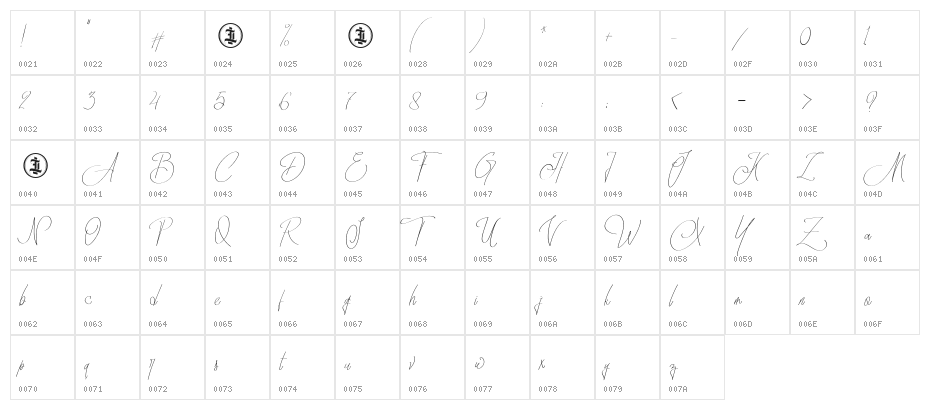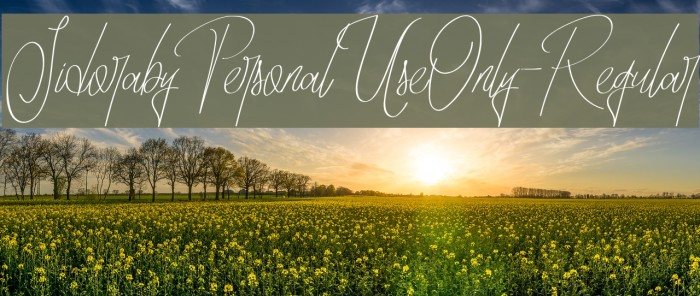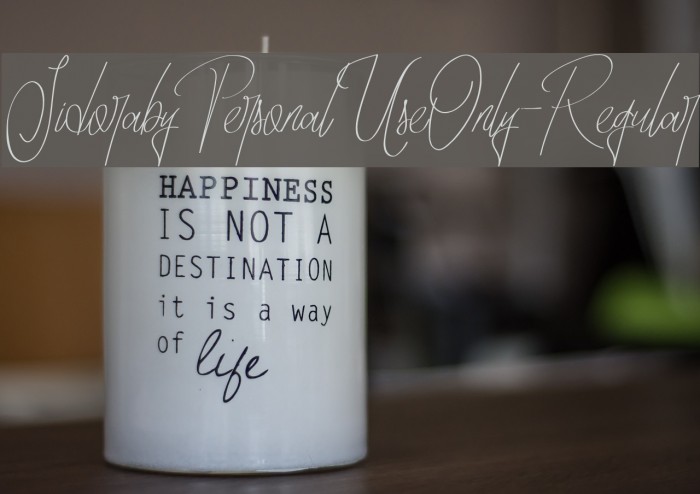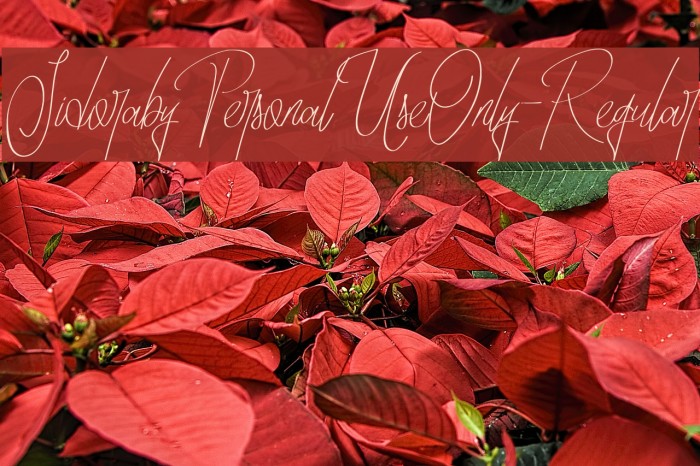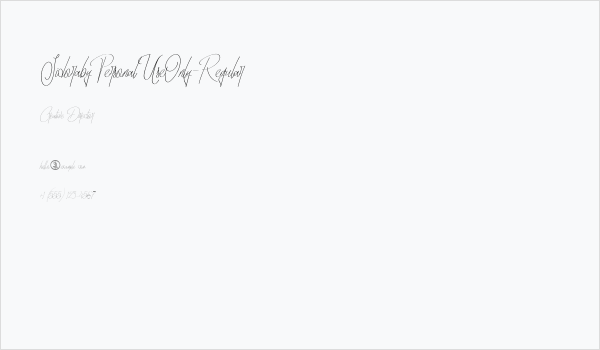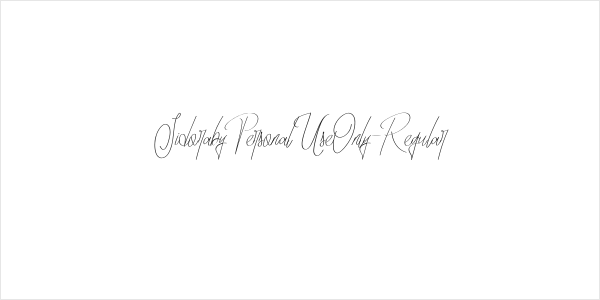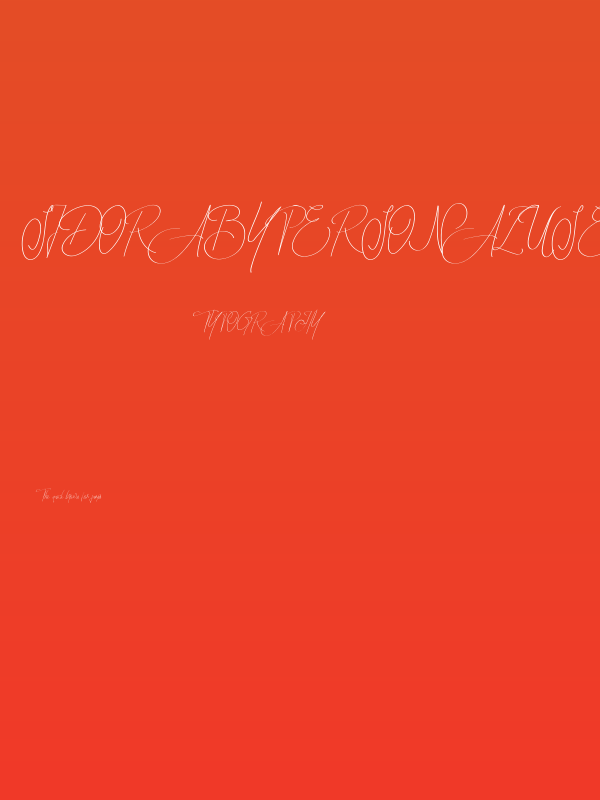
SidorabyPersonalUseOnly-Regular Font
SidorabyPersonalUseOnly-Regular Description
This elegant script font features graceful, flowing lines and a sophisticated style. The uppercase letters are characterized by their sweeping curves and intricate loops, giving a sense of fluidity and motion. The lowercase letters maintain a delicate and refined appearance, with subtle variations in stroke width that add to their charm. The numerals are consistent with the overall style, offering a harmonious blend of elegance and readability. Special characters are thoughtfully designed to complement the alphabet, enhancing the font's versatility. This font is ideal for projects that require a touch of class and sophistication.
Overall StyleElegant, Sophisticated
Use CaseLogos, Invitations, Branding
Proposed ProjectsWedding invitations, luxury branding, elegant stationery, and high-end product packaging.